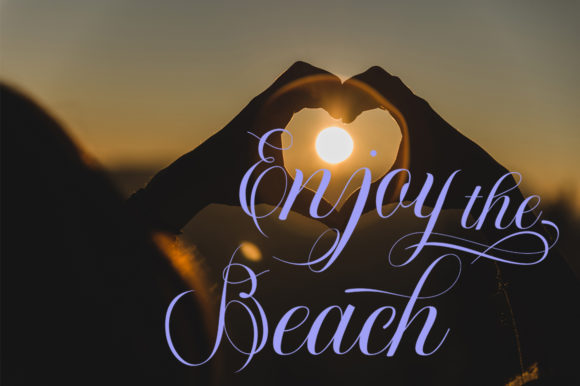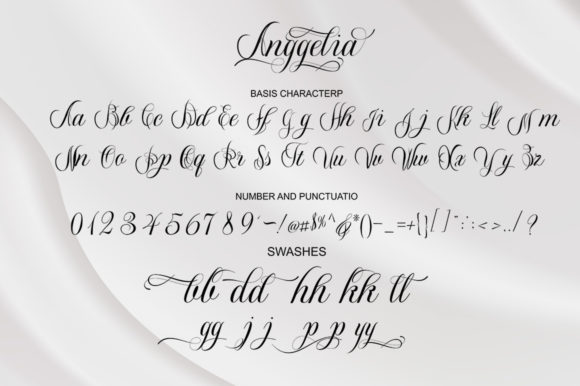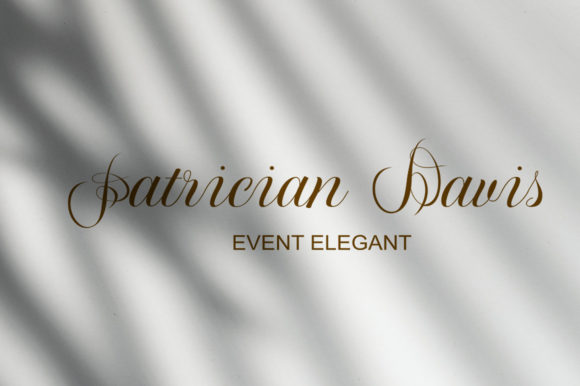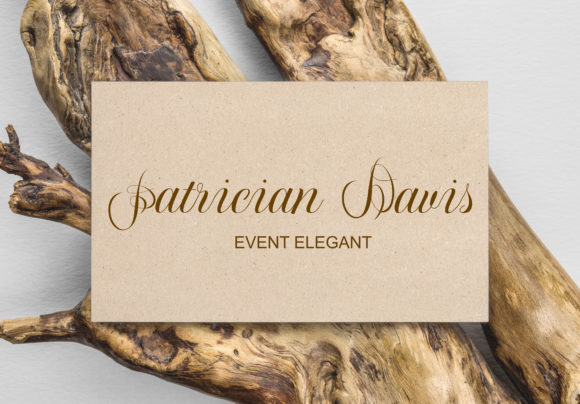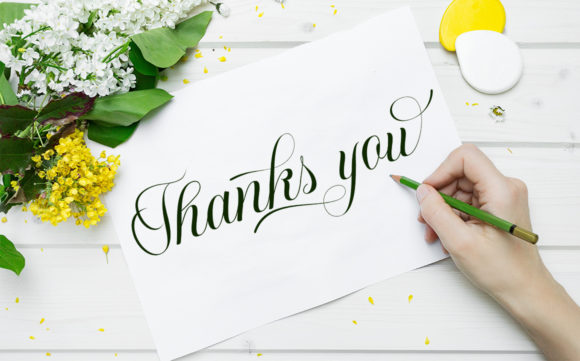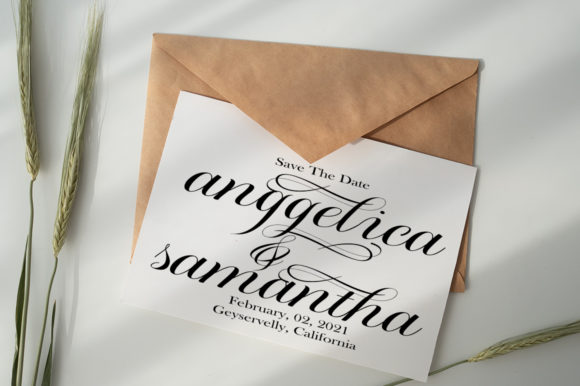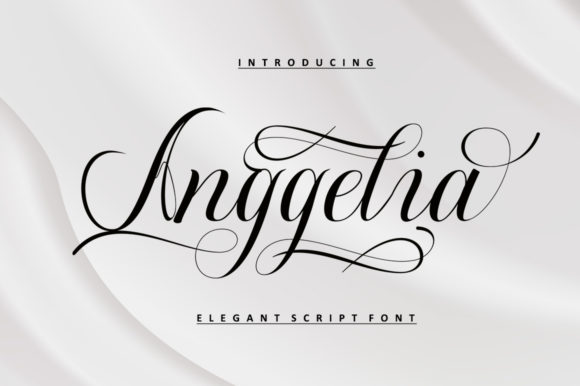
The Elusive Perfect Font: My Encounter with Anggelia
As a designer, I’ve had my fair share of late nights scouring font libraries, searching for that one perfect typeface to elevate a project. You know the feeling – you’re on a deadline, and your design just isn’t coming together. The client wants elegance, sophistication, and a dash of personality. That’s when I stumbled upon Anggelia, an elegant script font that has since become a staple in my design toolkit.
First Impressions: A Love Affair with Anggelia
Anggelia is described as an elegant script font with a contemporary atmosphere and impeccable form, inspired by timeless classic calligraphy. The first thing that caught my eye was its balanced and varied strokes – not too thin, not too thick. It’s a font that exudes confidence and poise, making it perfect for a wide range of projects, from branding and packaging to wedding invitations and social media graphics.
- ✨ Elegant and sophisticated, perfect for high-end designs
- 💫 Beautifully crafted with attention to detail and a clear understanding of typography
- 📚 Versatile and adaptable to various design contexts
While Anggelia is an exceptional font, there are a few minor considerations to keep in mind:
- ⚠️ Some users might find the font’s elegance and sophistication a tad limiting for very playful or casual projects.
- 🤔 As with any script font, it’s essential to use it in a way that respects its intended design and doesn’t overdo it with too much variation or mixing and matching.
The Story Behind Anggelia: Designer Inspiration
Anggelia’s creation is a testament to the power of inspiration and meticulous design. Its designer sought to craft a font that embodies the elegance of classic calligraphy while infusing it with a modern sensibility. The result is a typeface that feels both timeless and contemporary, perfect for designers looking to add a touch of sophistication to their work.
Q: Is Anggelia suitable for body text?
A: While Anggelia is stunning for headings and titles, its elegance and script nature make it less ideal for long body text. It’s best used for accentuating key points or creating visually appealing headers.